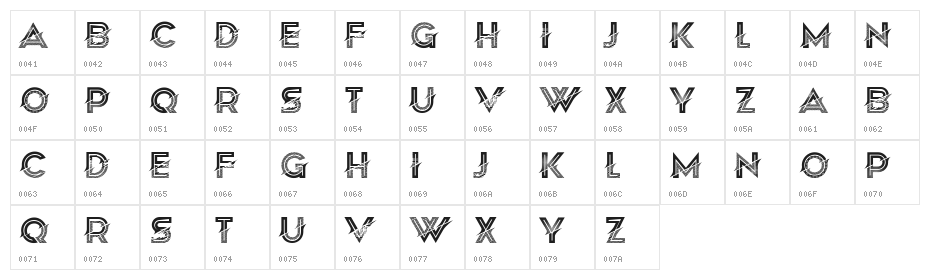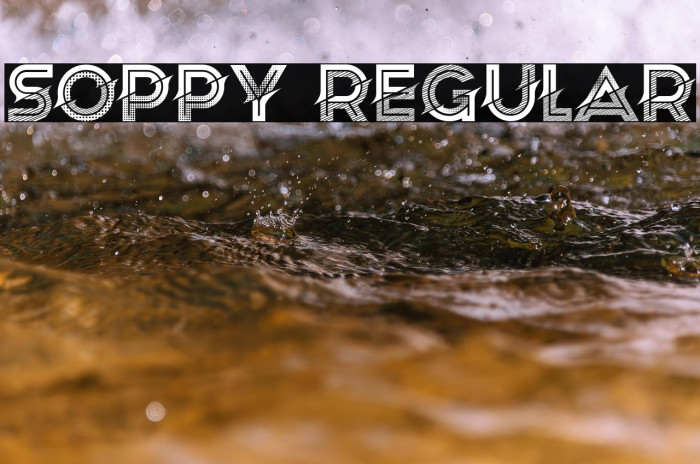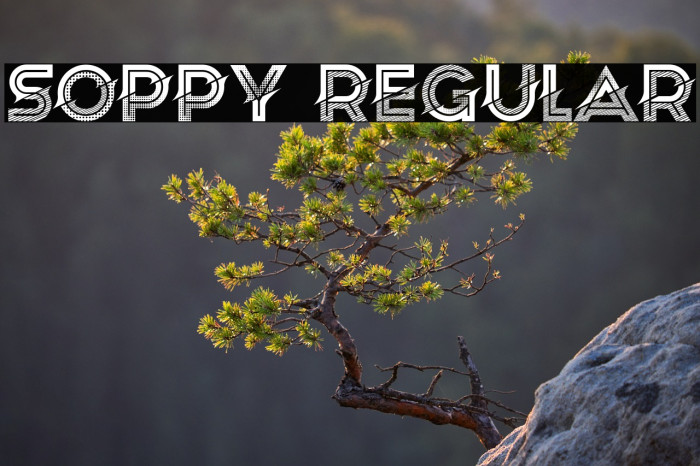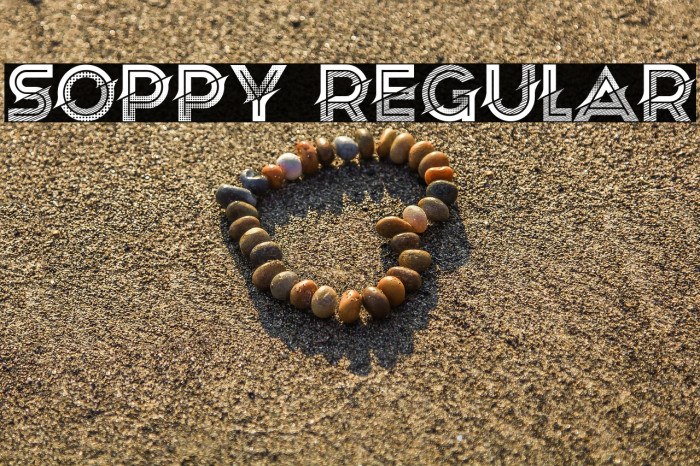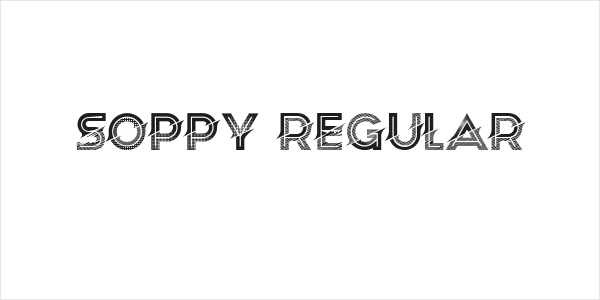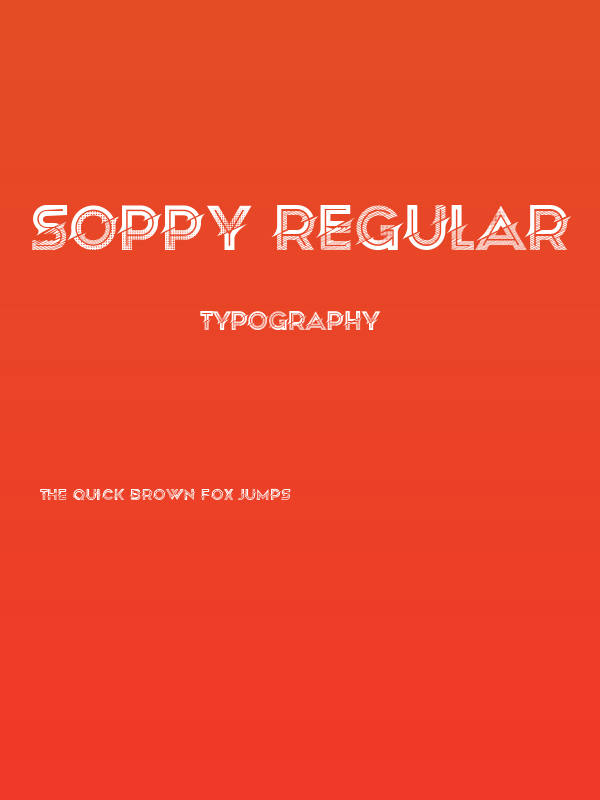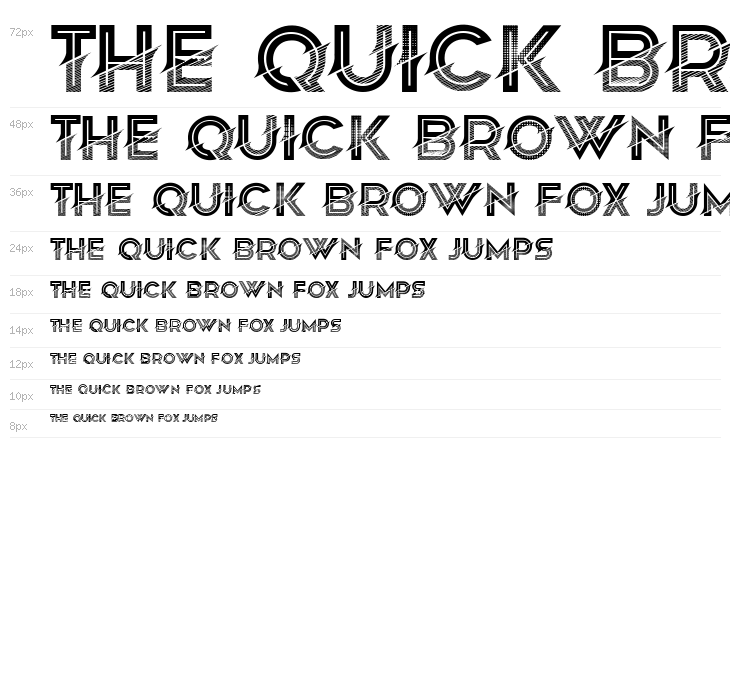
Soppy Regular Font
Soppy Regular Description
This font features a bold, decorative style with a unique pattern overlay that gives it a textured appearance. The letters are uppercase and have a geometric structure, with sharp angles and clean lines. The pattern within each letter adds depth and visual interest, making it stand out as a display font. The overall design is modern and eye-catching, suitable for projects that require a strong visual impact. The font's distinct style makes it ideal for headlines, posters, and branding materials where a bold statement is needed.
| Proposed Projects | Ideal for headlines, posters, branding, and any project requiring a strong visual impact. |